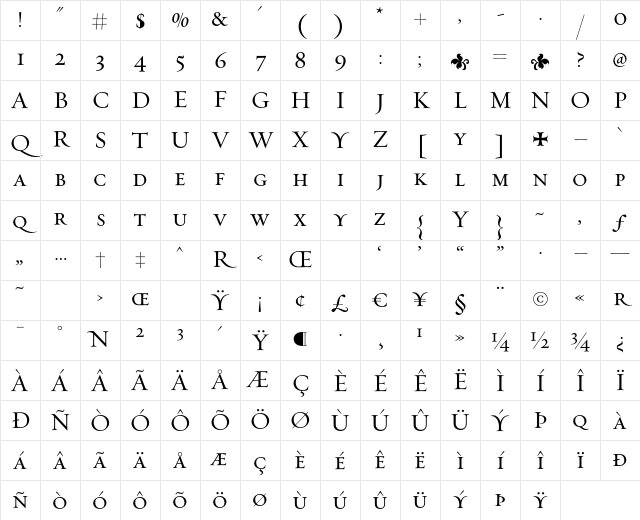
Requiem Text-HTF-SmallCaps
Style: Text-HTF-SmallCaps
Design Context for Requiem
Requiem is a composed and adaptable typeface that performs quietly and consistently across a wide range of design contexts.